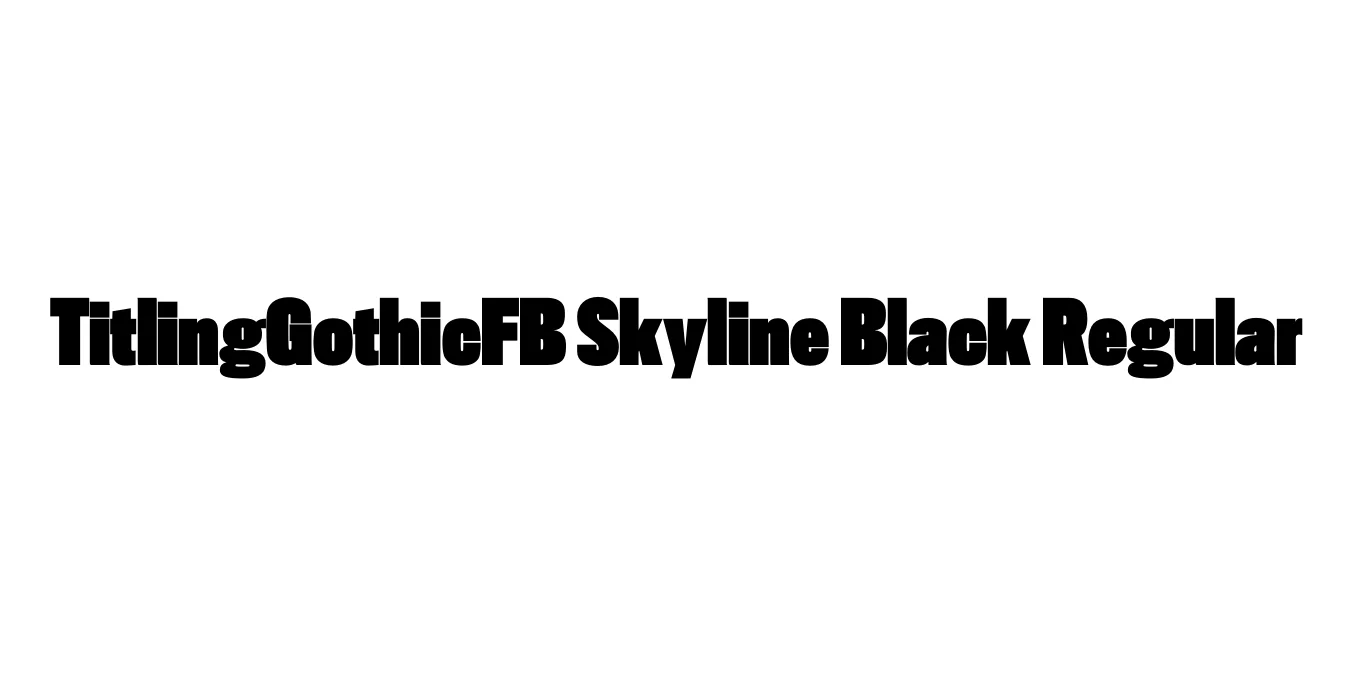
TitlingGothicFB Skyline Black Regular
Designed by David Berlow
| Designer | David Berlow |
| Similar Fonts | Alternate Gothic, Trade Gothic, Compacta, Impact |
Titling Gothic FB, designed by David Berlow, is an expansive sans-serif typeface family inspired by the high-tech, industrial aesthetics of the mid-20th century. Drawing inspiration from the various weights and widths of the classic American Gothic designs, this specific "Skyline Black" variant is characterized by its extremely narrow, compressed structure and heavy, impactful stroke weight. It was released through Font Bureau to provide a versatile solution for publication design where horizontal space is at a premium.
The Skyline series is part of a larger family that spans dozens of widths and weights, allowing for immense flexibility in editorial layouts. The Black Regular weight excels in creating commanding headlines that demand attention without occupying significant horizontal space. Its clean, geometric lines and robust construction make it a favorite for modern sports branding, film posters, and high-impact digital interfaces where boldness and efficiency are paramount.
TitlingGothicFB Skyline Black Regular Best Uses
Perfect for magazine headlines and cover titles where space is limited.
Ideal for dramatic, towering movie titles and promotional credits.
High-impact typography for athletic jerseys, stadiums, and digital scoreboards.
Creating bold, readable text overlays on vertical mobile content.